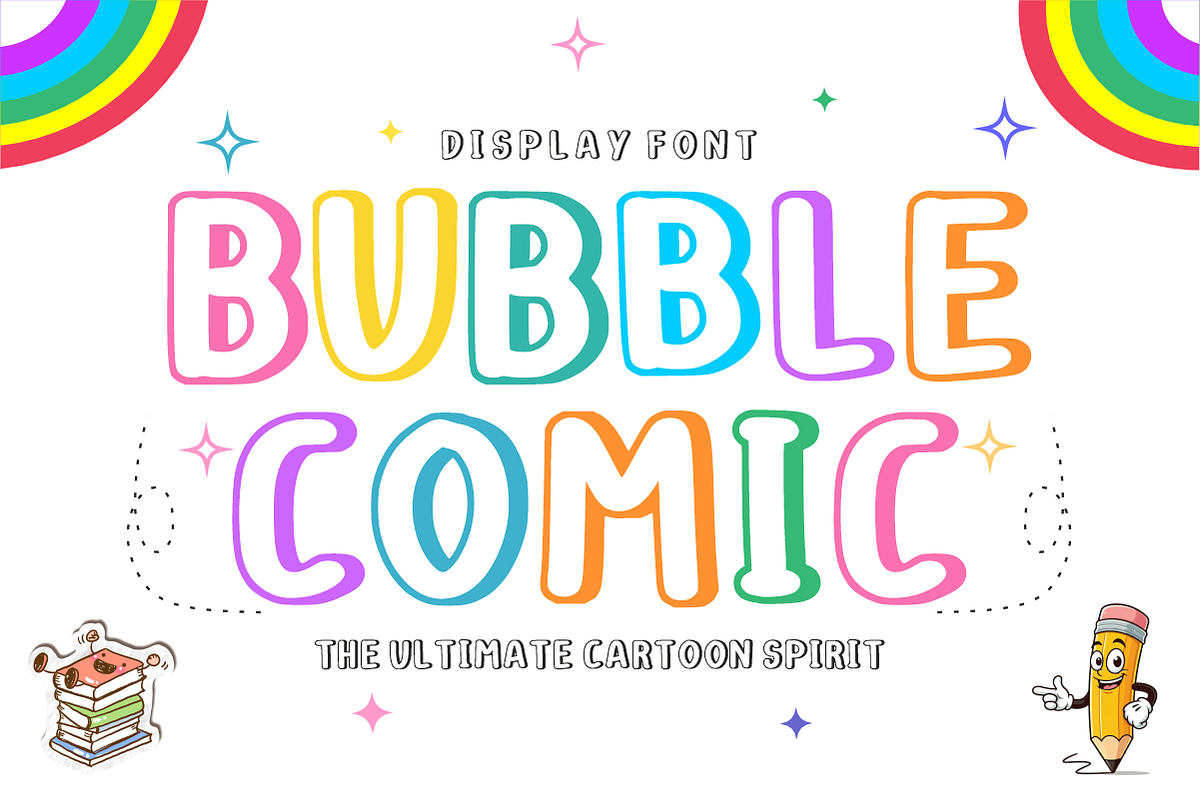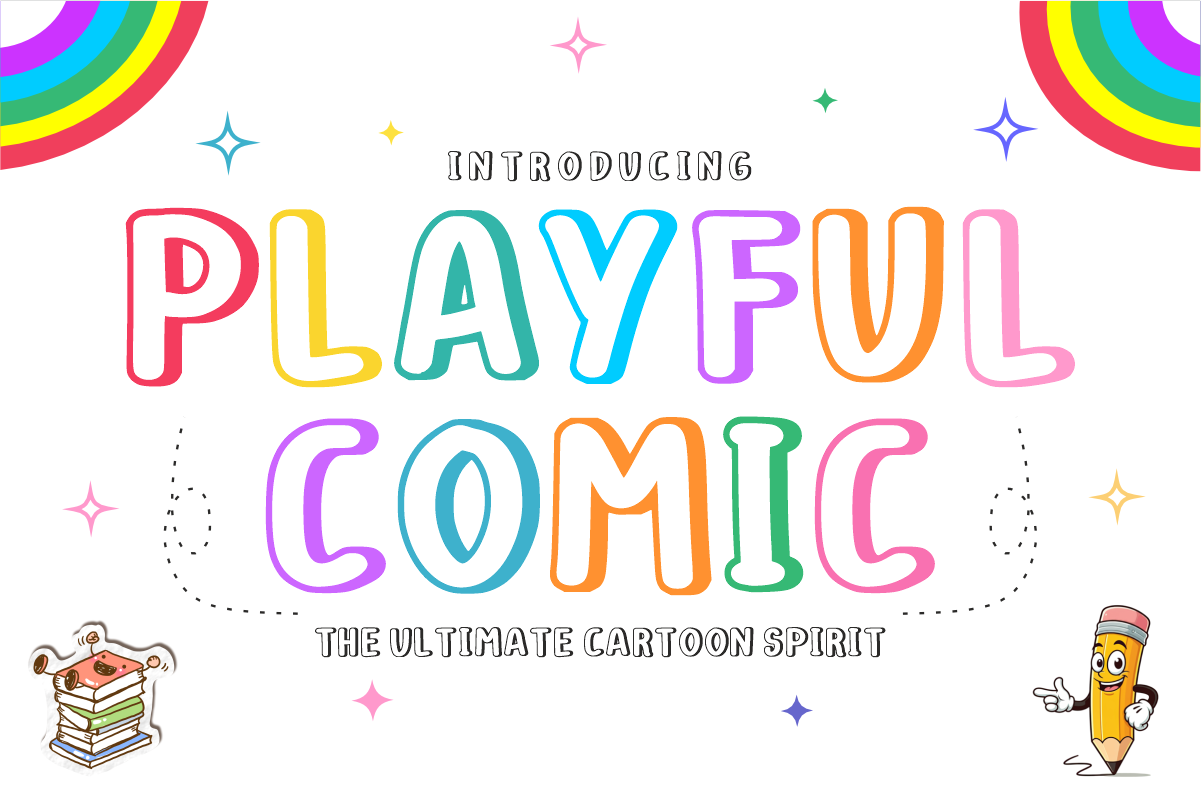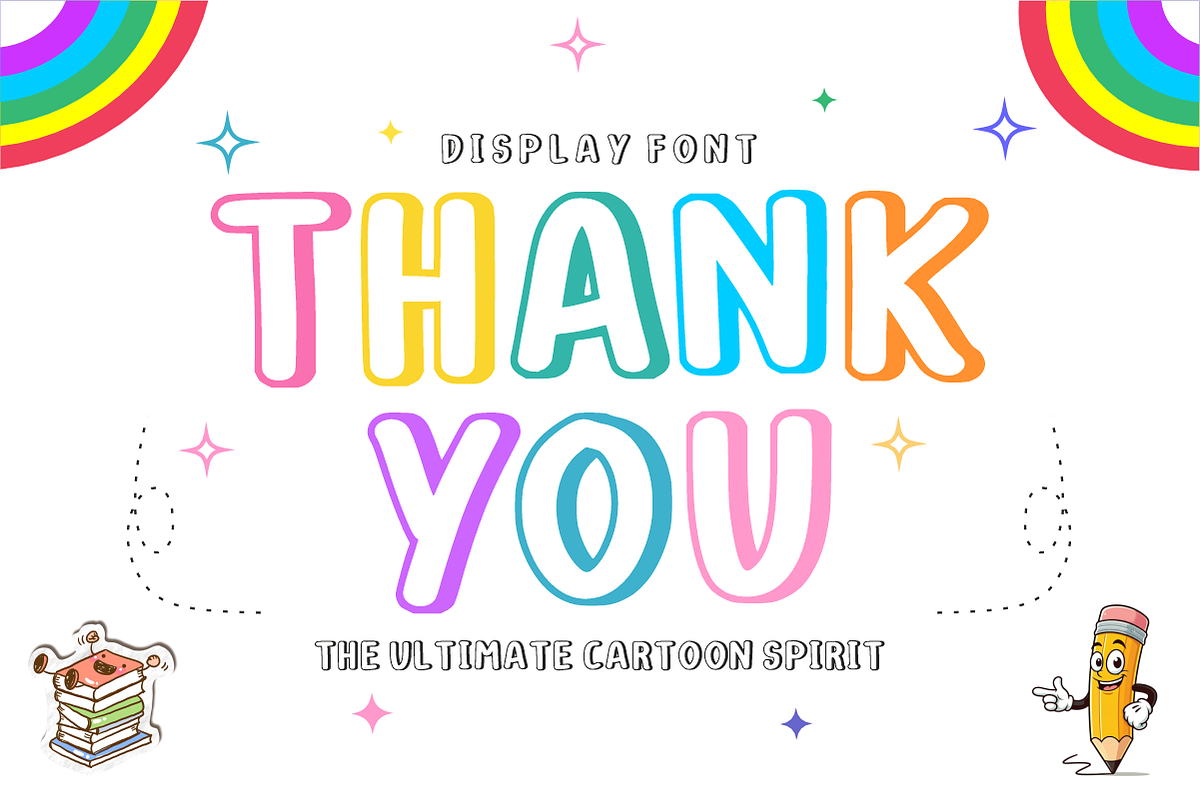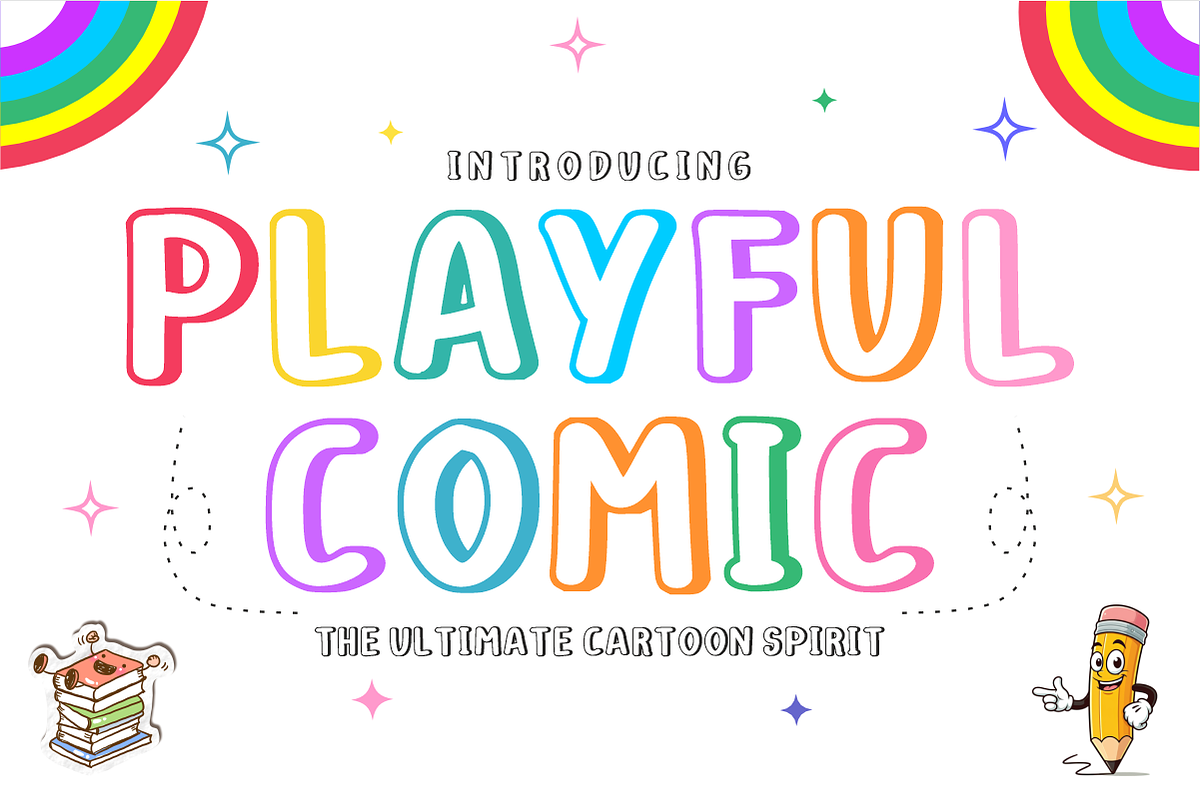
Playful Comic - Cartoon Display Font
Playful Comic - Fun Cartoon Display Font
Playful Comic is a bright, bouncy, and bubbly display font featuring tall, rounded letterforms inspired by classic cartoon strips, comic books, and colorful children's illustrations. Capturing a cheerful and energetic spirit, this fun font brings instant joy, creativity, and friendly appeal to storybooks, school projects, and DIY craft creations. Every character is cleanly vectorized to guarantee high-resolution prints and smooth, effortless cutting on Cricut and Silhouette machines.
Uppercase Character Set
Numbers & Basic Punctuation
Ideal For:
Children’s comic books, cartoon titles, storybook covers, graphic novels, and fun illustration lettering
Teachers Pay Teachers (TpT) authors creating classroom activity sheets, student reading flashcards, educational games, and bulletin board headers
Cricut, Silhouette, and HTV vinyl cutting projects for kids' apparel, t-shirts, custom backpacks, and pencil cases
Etsy sellers designing birthday party invitations, school stationery, custom stickers, and vibrant playroom decor
Canva template creators making school event flyers, kids' party banners, and engaging social media graphics
Custom die-cut sticker packs, planner decals, and digital scrapbooking layouts